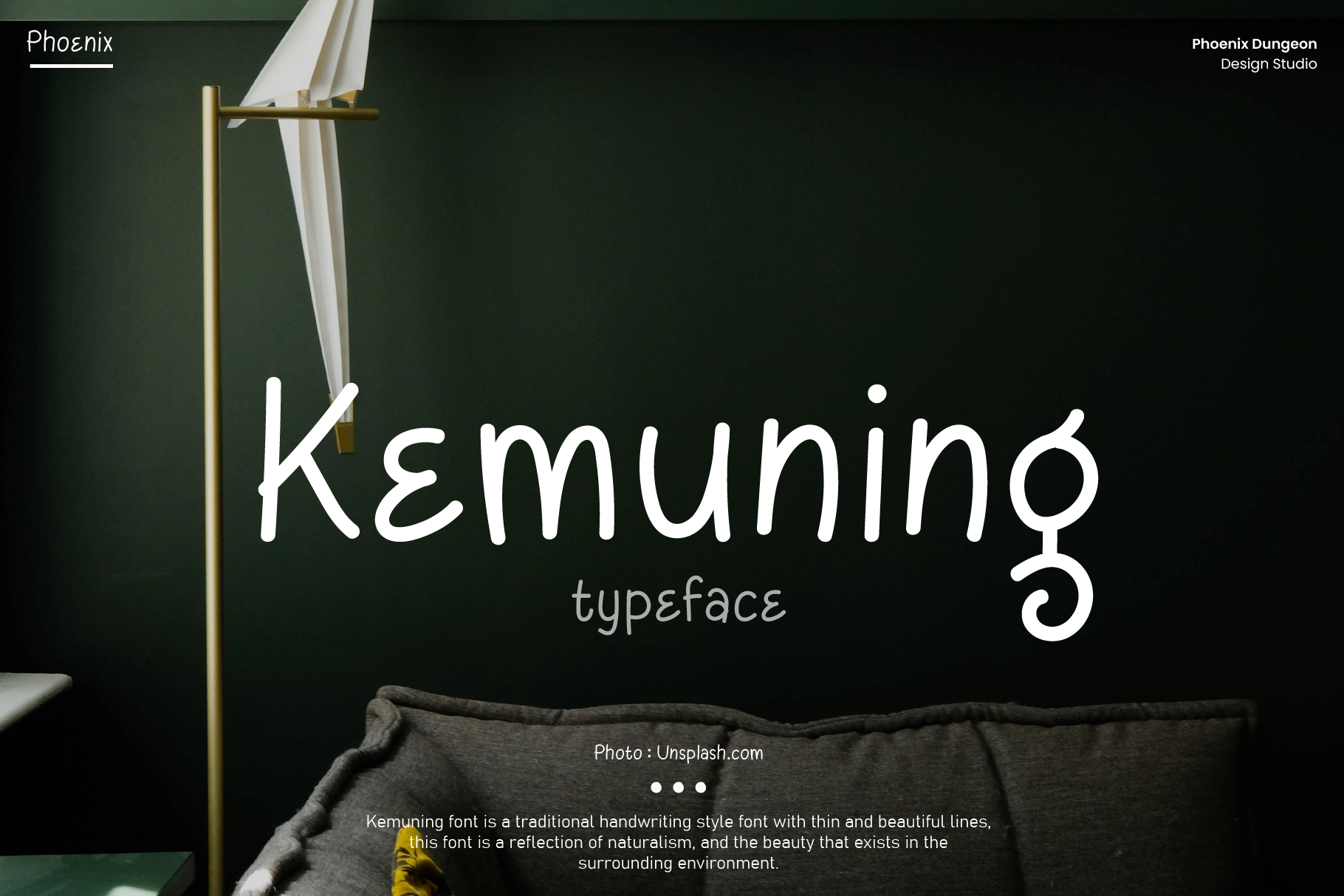
Kemuning Typeface
Kemuning font is a traditional handwriting style font with thin and beautiful lines, this font is a reflection of naturalism, and the beauty that exists in the surrounding environment.